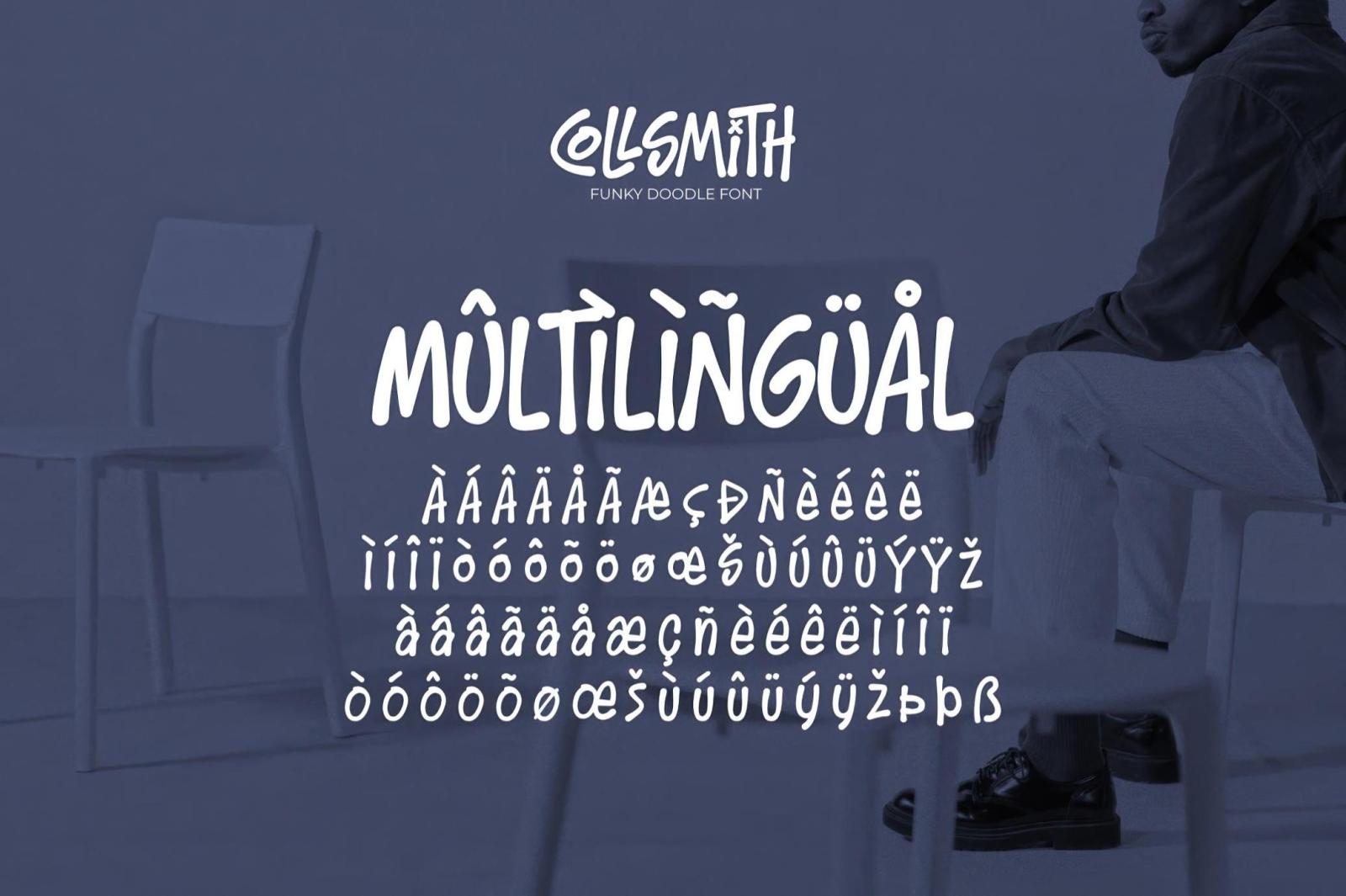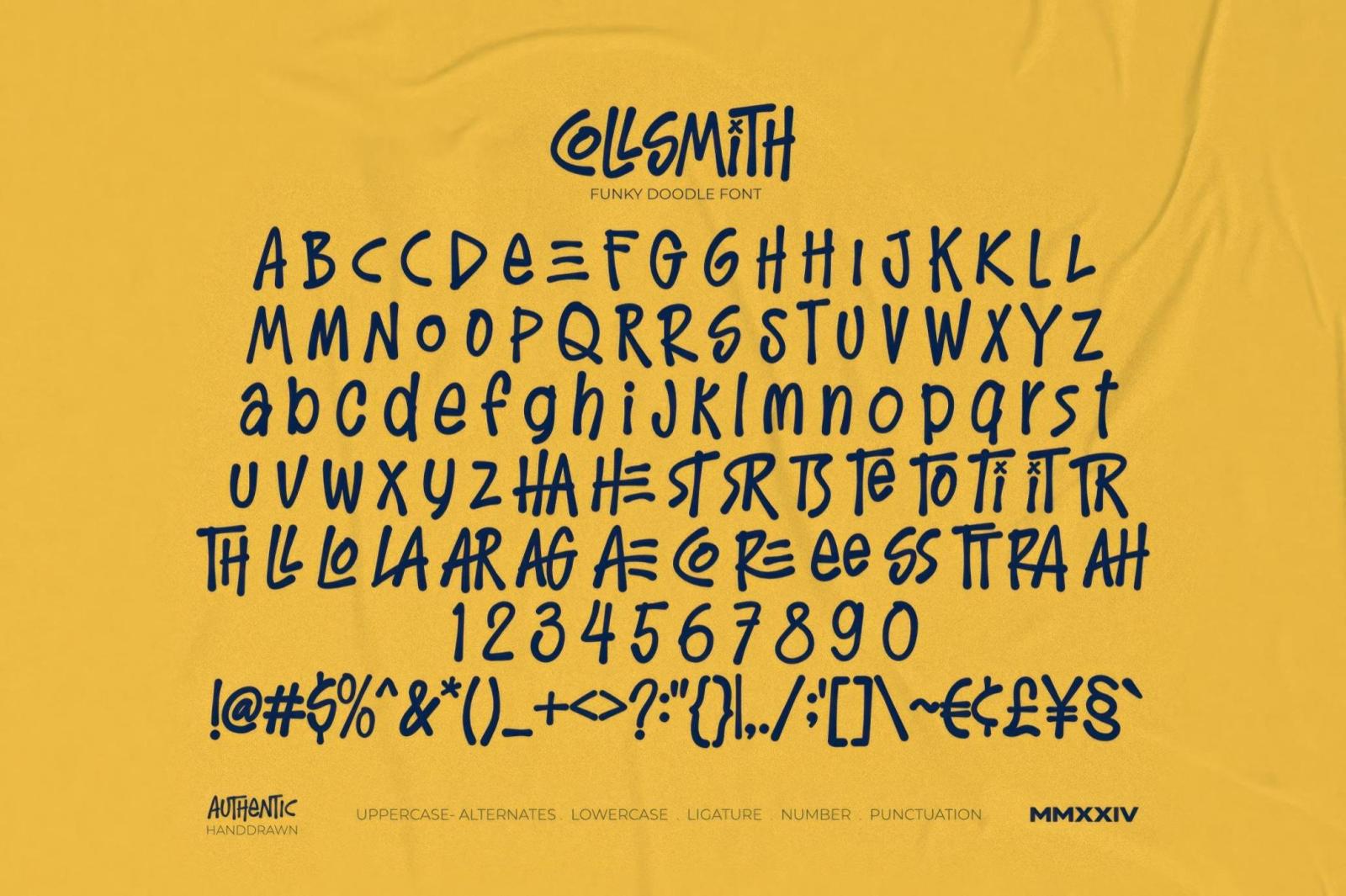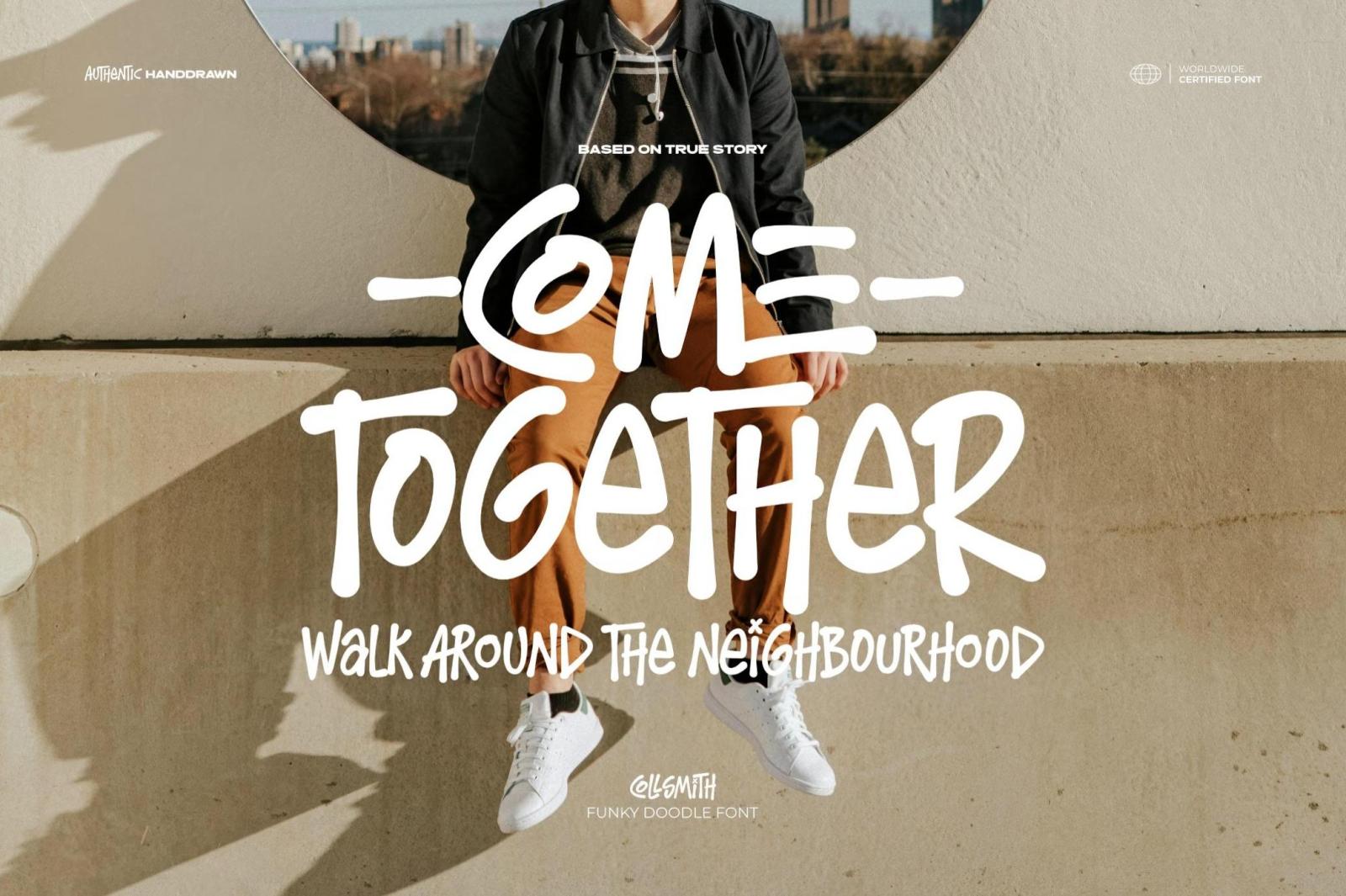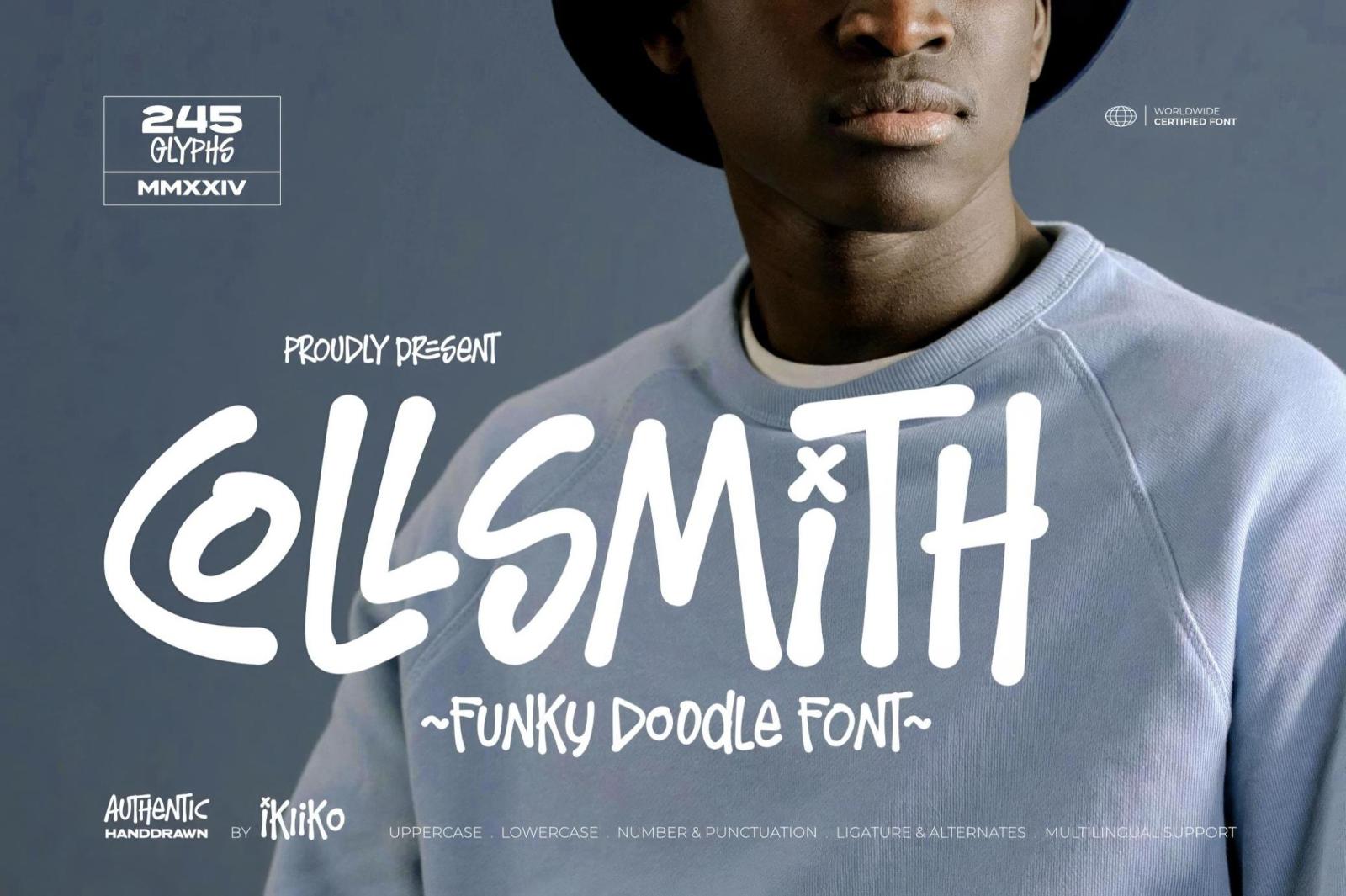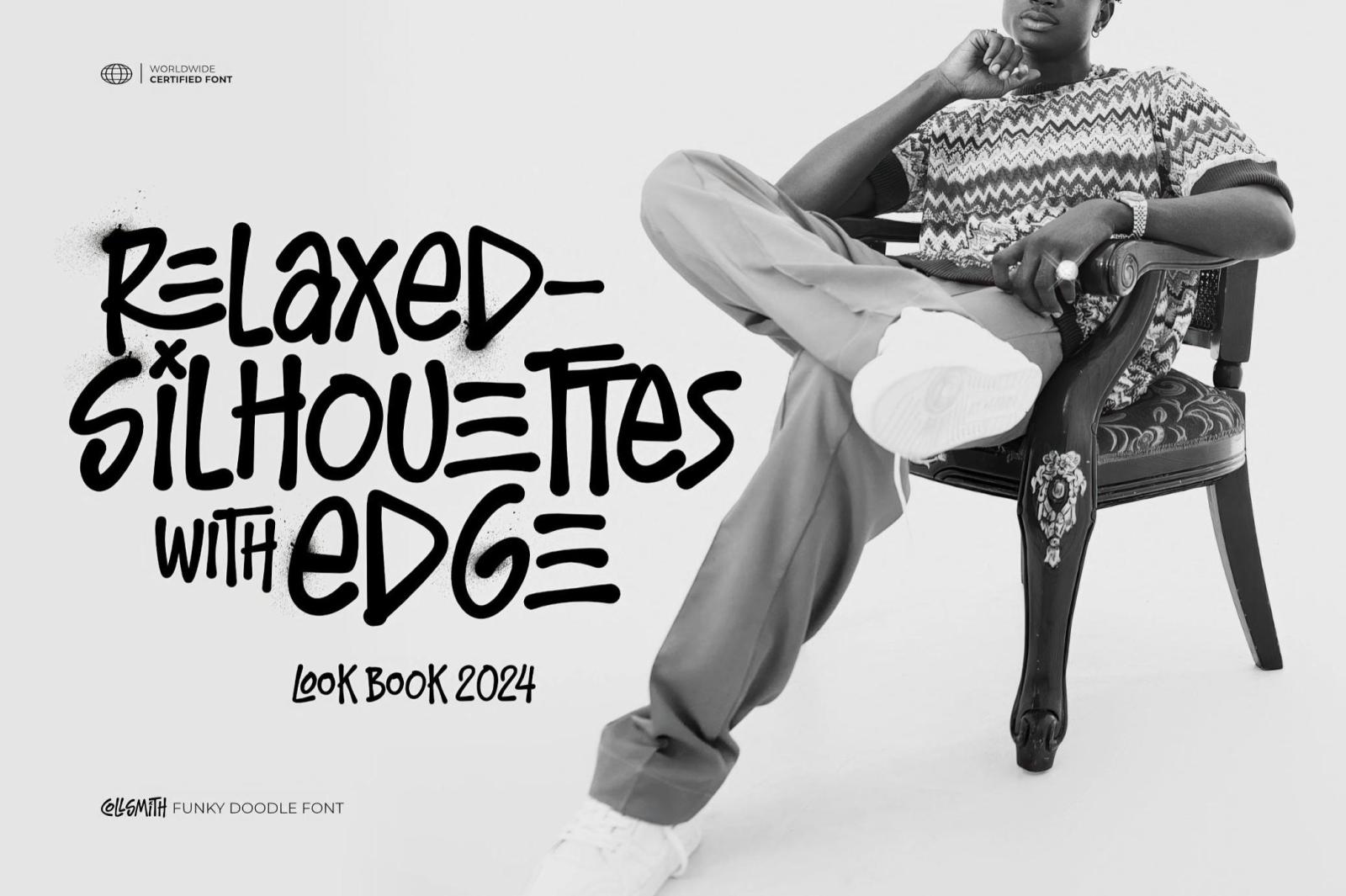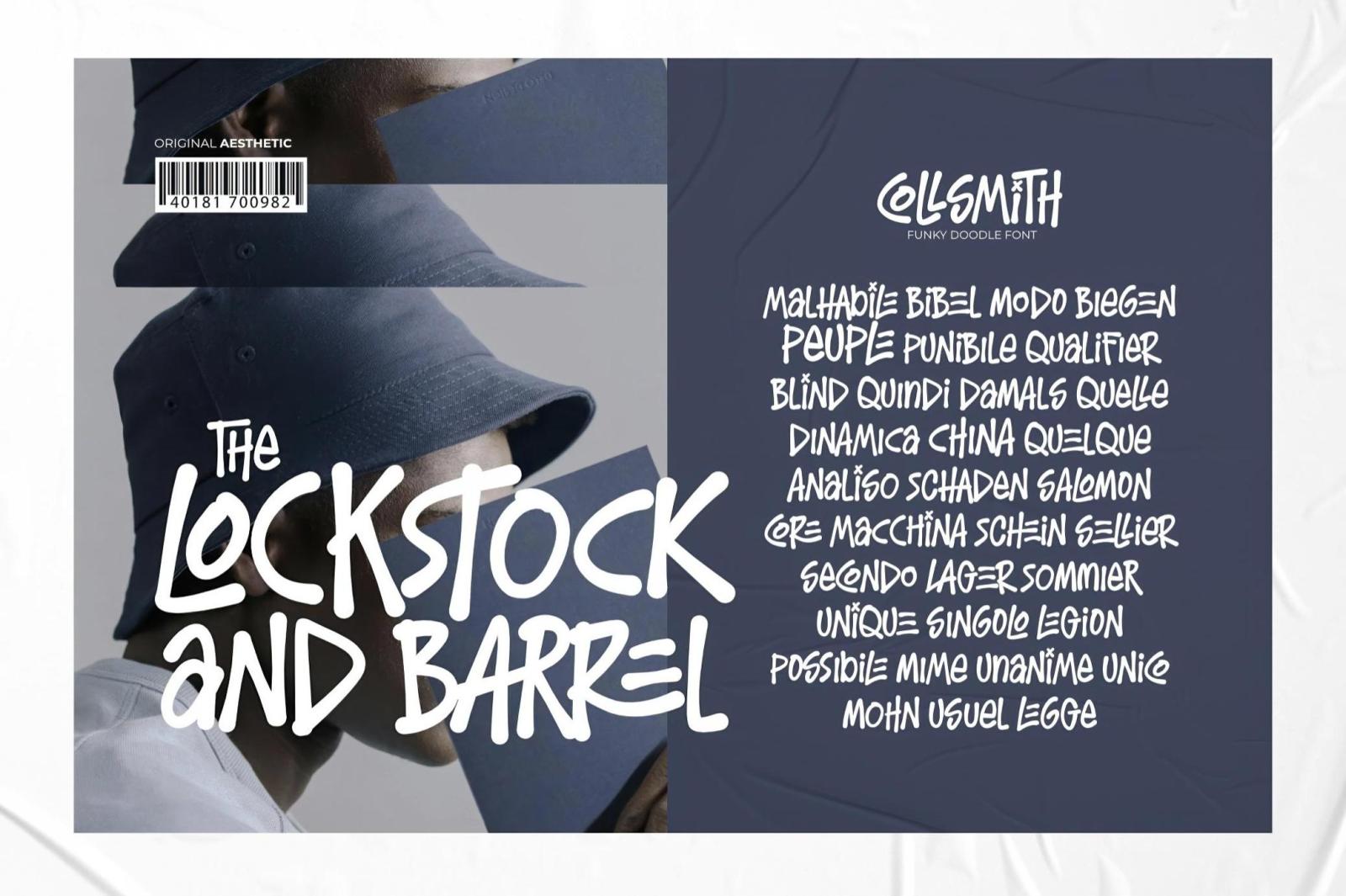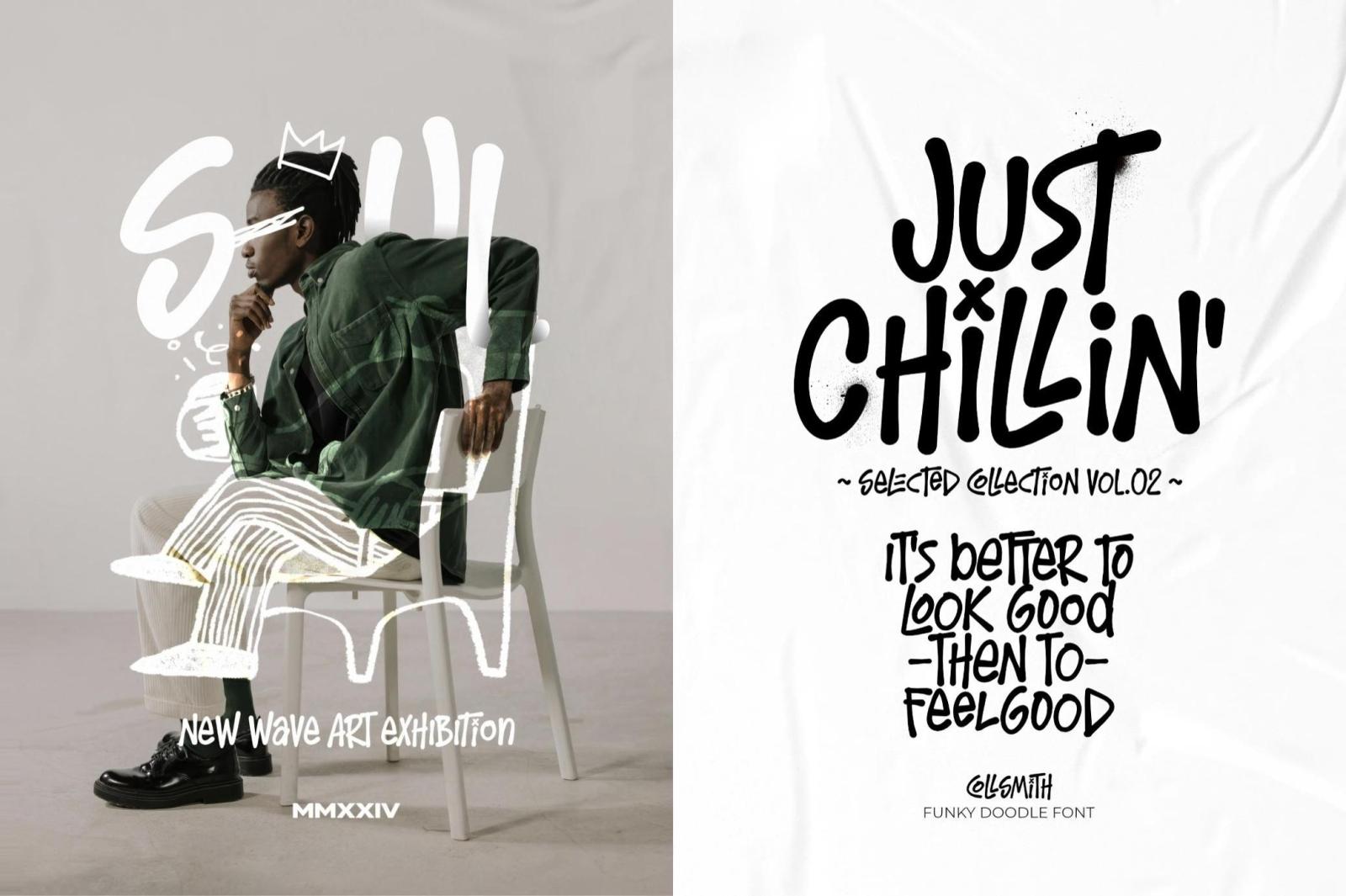
Collsmith — Funky Doodle Font
The Collsmith exudes a casual, hand-drawn charm, embodying a playful and authentic aesthetic. Its irregular and bold strokes resemble the look of doodles or graffiti-style handwriting, which makes it stand out with a lively and expressive vibe. This font pairs well with designs aiming for an informal, vibrant, or artsy feel: fashion brands, streetwear, posters, event logos, magazine layouts, quotes, or text overlays. It offers uppercase, lowercase, numbers, punctuation, ligatures, and alternates, ensuring adaptability across various languages.